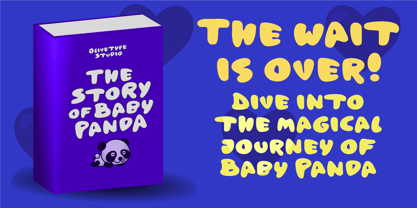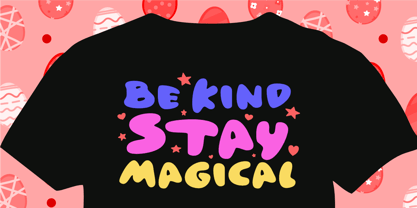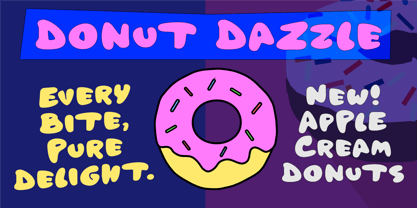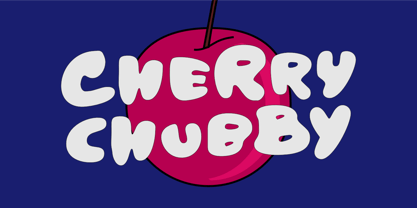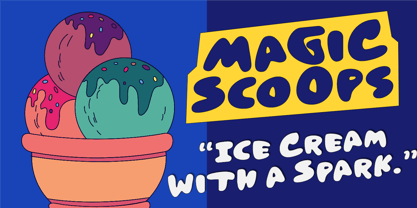
Cherry Chubby
by Olivetype
The Cherry Chubby Font Family was designed by Nurul Hidayani and published by Olivetype. Cherry Chubby contains 1 styles. More about this family
Cherry Chubby is a super cute, bold, and irresistibly sweet display font designed to bring joy to every project. With its soft curves, chunky letter shapes, and playful personality, this font feels like a mix of delicious candy and cheerful cartoon charm. Perfect for kids’ books, dessert branding, food packaging, birthday invitations, apparel prints, and anything that needs a burst of happiness. Every letter in Cherry Chubby is crafted to look friendly, warm, and full of character—just like a cherry-topped treat. This font shines in colorful, fun, and positive designs, making it a great choice for creators who love bubbly aesthetics and adorable vibes. Whether you're designing logos, stickers, posters, or social media graphics, Cherry Chubby adds a big scoop of sweetness to every word.
Designers: Nurul Hidayani
Foundry: Olivetype